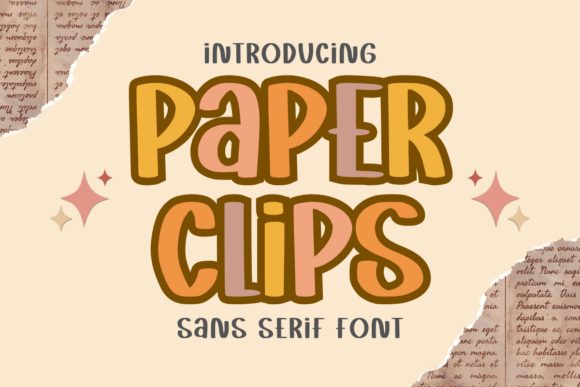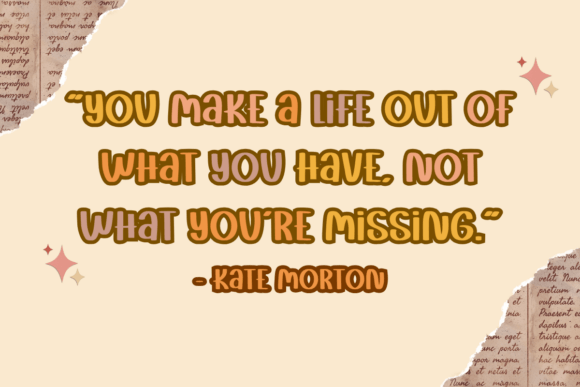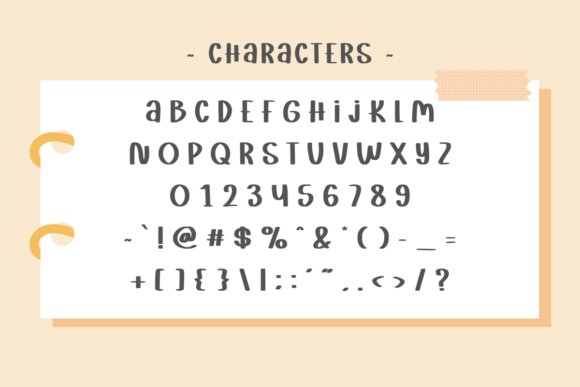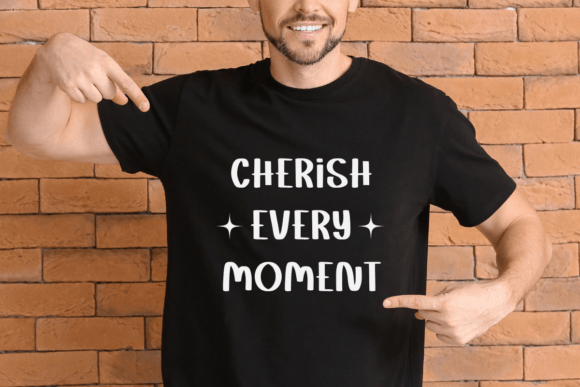
Paper Clips Font: A Playful Handwritten Sans Serif for DIY & Cricut
About the Paper Clips Font
Get ready to be inspired by Paper Clips Font, a fresh and dynamic typeface for modern creators. Meet “Paper Clips,” a playful and simple handwritten sans-serif font. Perfect for daily journals, planners, calendars, or memorable notes, it adds a personal touch to your writing. Whether you’re scrapbooking, creating invitations, or designing teaching materials, “Paper Clips” makes it easy and fun. It’s also great for low-content projects like workbooks, sheets, and KDP templates, bringing charm and personality to every design.
Its friendly, informal style makes it ideal for branding projects targeting younger demographics, children’s products, or businesses emphasizing approachability. It also works well in short headlines, social media graphics, and playful packaging designs. However, its handwritten nature makes it less suitable for body text or UI elements requiring high readability. Avoid using it in large blocks of text or applications demanding sharp legibility.
Pairing “Paper Clips” with a clean sans-serif like Open Sans for body text provides excellent contrast and readability. For a more playful feel, consider pairing it with a rounded geometric sans-serif such as Poppins. A subtle serif like Lora can add a touch of elegance while maintaining the overall informal tone.
The font’s core personality is undeniably playful and approachable, conveying a sense of warmth and approachability without being childish.
Paper Clips Font Usage Examples
Paper Clips Font Example